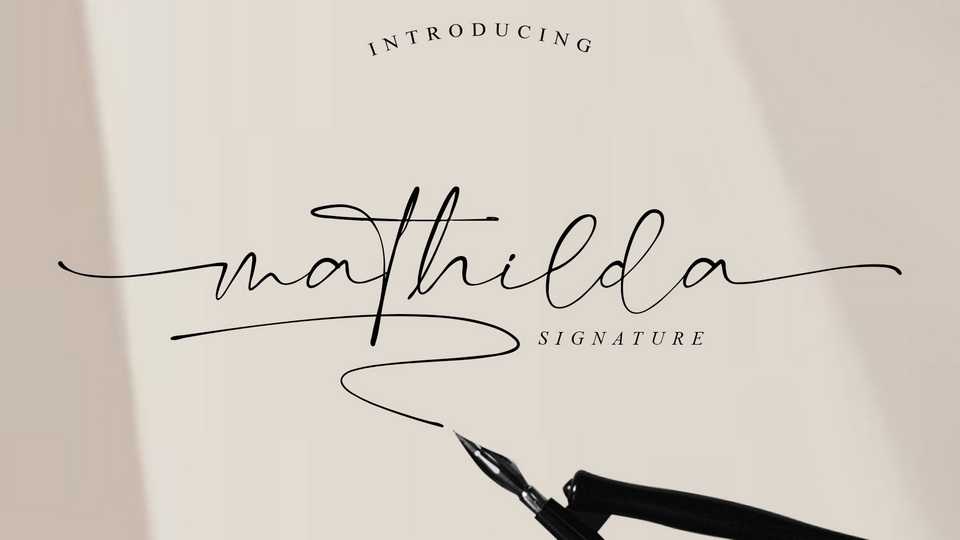
Download Mathilda Signature font, an organic handwritten typeface. Mathilda Signature is suitable for branding, signature, wedding invitation, promotion, product packaging, and other needs.
Designer: BeauTypes Studio